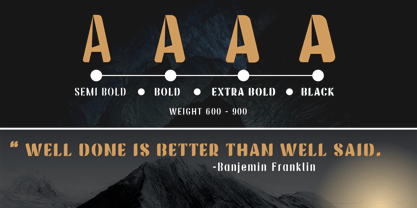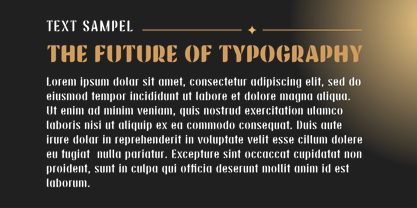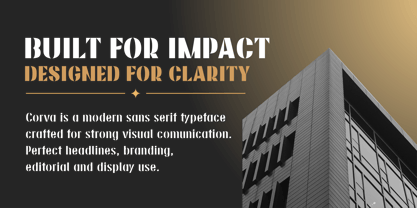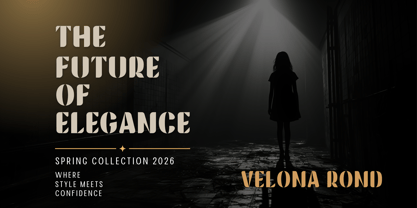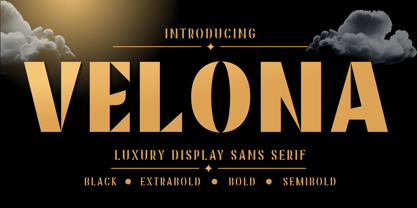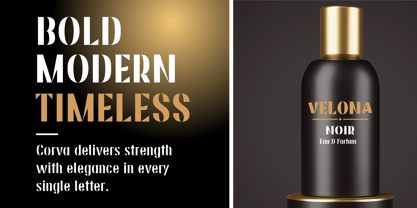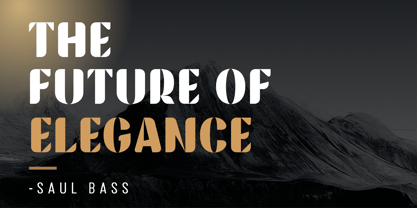
Velona
Die Schriftfamilie Velona wurde von Reza Mukhtazar entworfen und von Rezastudio veröffentlicht. Velona enthält 8 Stile und Familienpaketoptionen. Mehr über diese Familie
Velona is a luxury display sans serif font crafted to bring elegance, sophistication, and bold visual impact to your creative projects. Featuring unique geometric cuts, sharp angles, and refined Art Deco-inspired details, Velona combines modern luxury with timeless glamour.
Designed for premium branding and high-end visual identities, Velona stands out with its strong character and distinctive letterforms. The font family includes multiple weights ranging from Semibold, Bold, ExtraBold, to Black, providing flexibility for both subtle elegance and powerful headlines.
Whether you're creating luxury logos, fashion editorials, cosmetic packaging, wedding invitations, magazine covers, social media graphics, or upscale marketing materials, Velona delivers a sophisticated and memorable appearance that commands attention.
Perfect for:
• Luxury Branding
• Fashion & Beauty Brands
• Logo Design
• Editorial Layouts
• Premium Packaging
• Wedding Stationery
• Social Media Graphics
• Hotel & Restaurant Branding
• Product Labels
• High-End Advertising
Font Features:
• 4 Weights: Semibold, Bold, ExtraBold & Black
• Uppercase Letters
• Numerals & Punctuation
• Multilingual Support
• Professional Kerning
Bring timeless elegance and modern luxury into your designs with Velona.